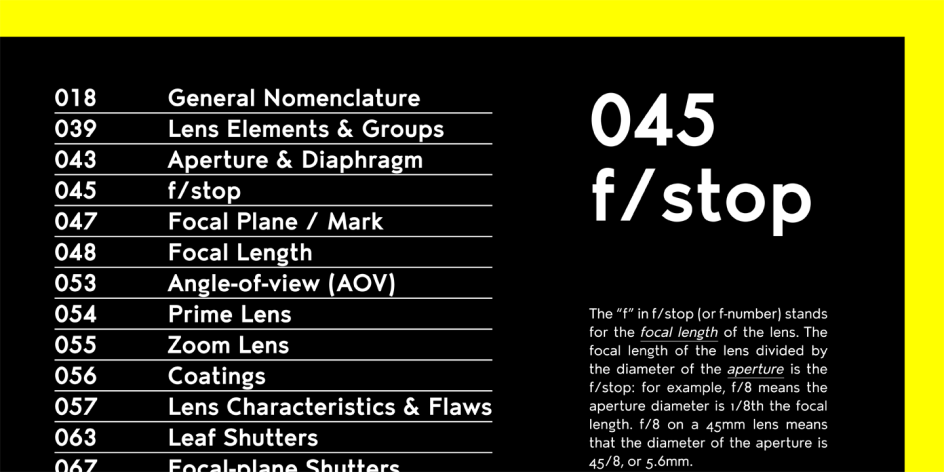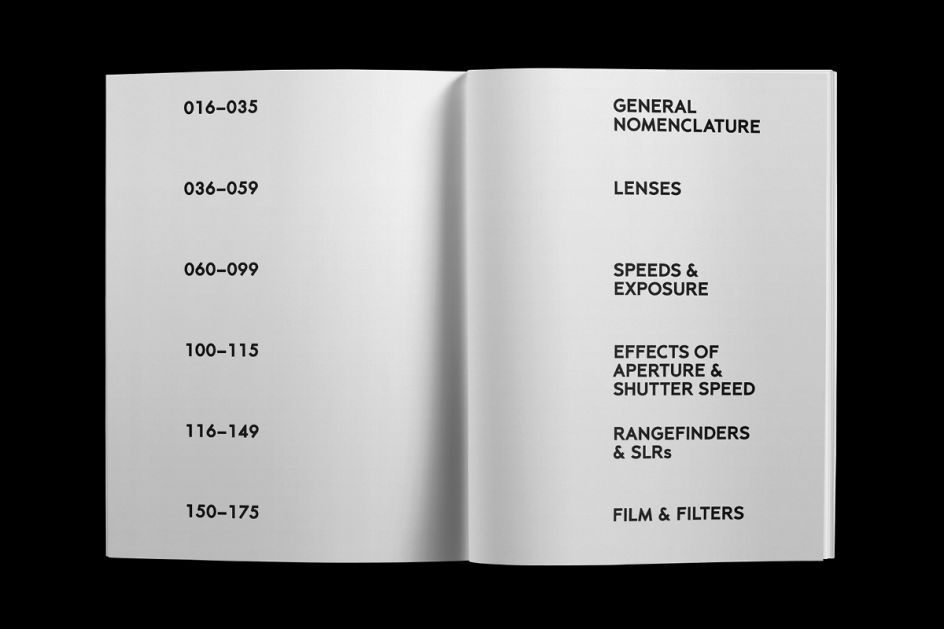
Superb design and a bespoke typeface for a new guide to analogue photography
Design director by day, modern-day Renaissance man by night Andrew Bellamy has just released the beautiful new book Analogue Photography: A Reference Manual for Shooting Film, a volume he wrote, designed and illustrated, finishing it off with a custom typeface. Phewweeee.
The book, claims publisher Ars-Imago Editions, is the first “to reestablish the principles of film photography for a new generation.
Bellamy launched ilottvintage.com in 2010 as a resource for anyone wanting to know more about rangefinder cameras and film photography. Then in 2015, inspired by vintage manuals from the 1960s he expanded the Glossary from the website into a physical book and printed a short run of 35 copies. “It was a personal project that let me combine passions for print design and photography,” he says. “Luca Bendandi at Vetro Editions in Berlin saw this and thought such a short run of beautifully designed book was ‘madness’ and got in touch, and we set about publishing it with proper distribution.
“Having already done all the photography and illustrations the final touch was the custom typeface 35-FTR, now available at myfonts , I had initially set the book in a version of Futura because it had the perfect look as it was used for the majority of the ads and manuals of the period, but I had had to make the point size fairly small to get the information in to the 192pp count. The tall ascenders and descenders of Futura make it difficult to tighten up leading, and also make the x-height relatively small. I set about making a font that had the style of Futura but could be set tightly more like Helvetica to be able to increase the point size without increasing the page count.”